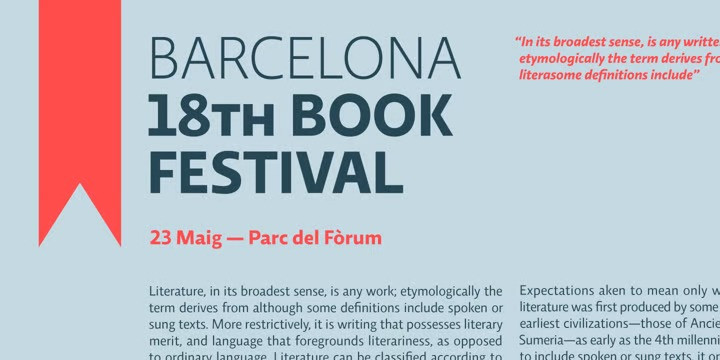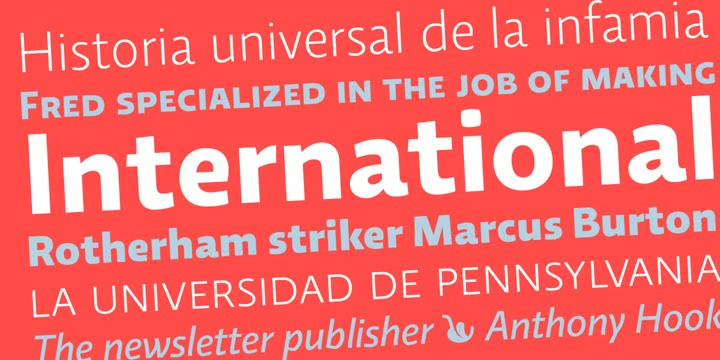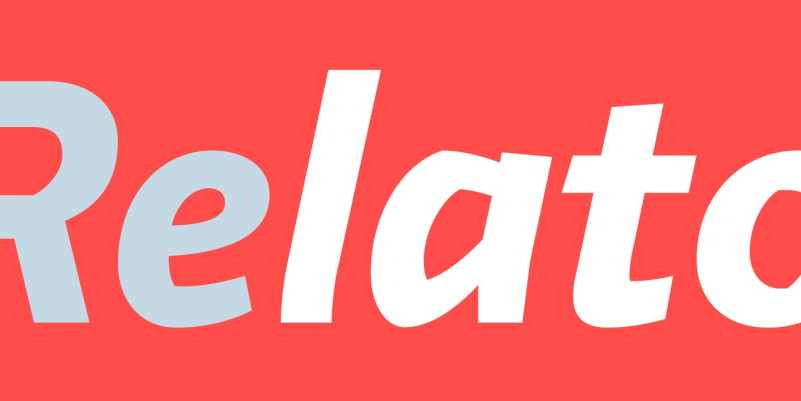
Relato Sans Font
Introducing Relato Sans Font Family.
Relato Sans is the other face of Relato Serif (a typeface with much idiosyncrasy) nevertheless, the sans version of this typeface is more austere and aseptic. A humanistic type, with a contemporary cut, created for general use in texts and holders and with a great variety of weights, which allow enough flexibility for projects of great magnitude. Although leading with an independent family it maintains many of the characteristics of its homologous such as proportions, the “x” height, the construction based on air lines of the italic, ornaments and so on. These details show coherence with the serif version, and at the same time reinforce its personality. Being a multifunctional type, the “kerning” has been worked to function in small sizes as well as in larger ones such as holders. The contrast between weights, was optimized to be used in pairs (Light with Semibold, Regular with Bold and Medium with Black).
Relato Sans is presented in 6 different weights, in Roman, Italic, Small Caps and Small Caps Italic with three different styles of numerals, Old style figures, Lining figures and Small Caps figures.